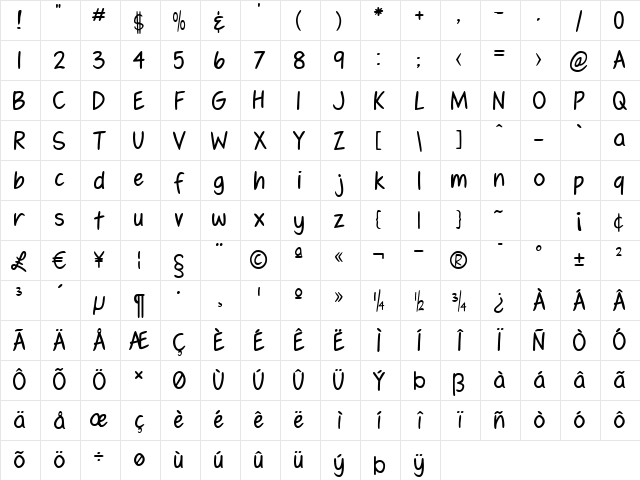
Fennario Regular Free Font
Fennario Regular
Design Context for Fennario
Fennario is a composed and adaptable typeface that performs quietly and consistently across a wide range of design contexts.